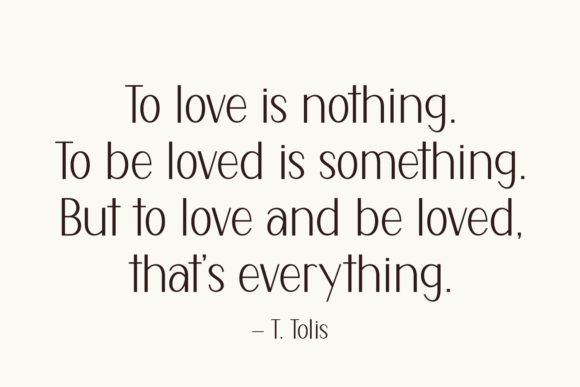
Beloved Parents Font
Beloved Parents font is the epitome of contemporary elegance, embodying the spirit of modern sans serif typography. Its sophisticated design makes it the perfect choice for expressing sentiments on greeting cards and quotes or elevating the flair of products, packaging, and labels.
Effortlessly adorning posters and t-shirts, the finesse of Beloved Parents font makes it an invaluable tool in any designer’s arsenal. Its versatile nature shines not only on Valentine’s Day and Mother’s Day but it also champion’s back-to-school and fashion themes quite remarkably. A periodic adornment for magazine fonts, Beloved Parents redefines the sophistication in print.